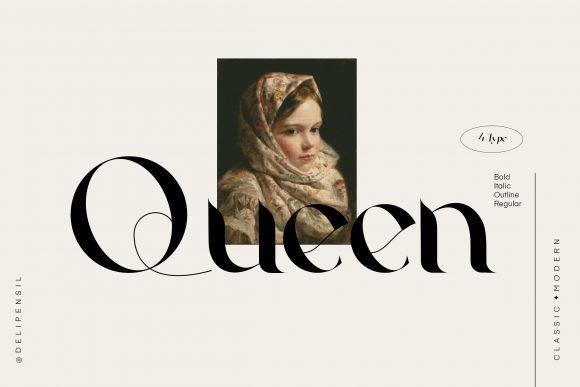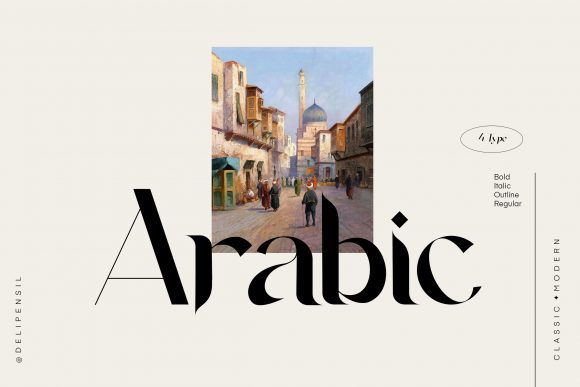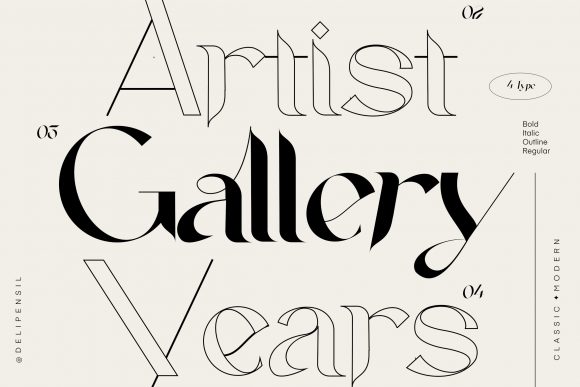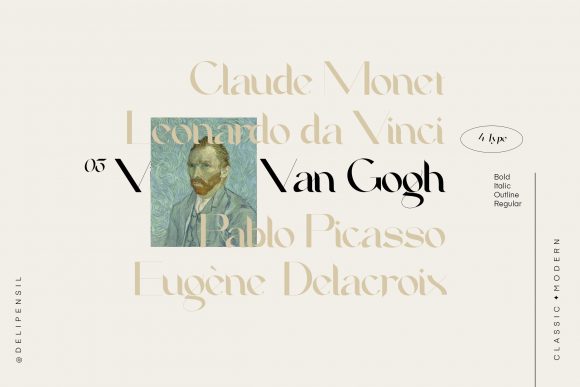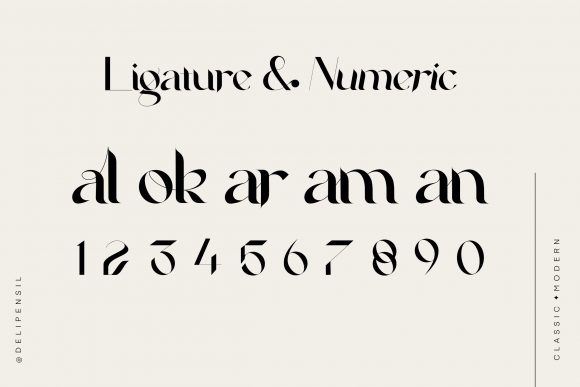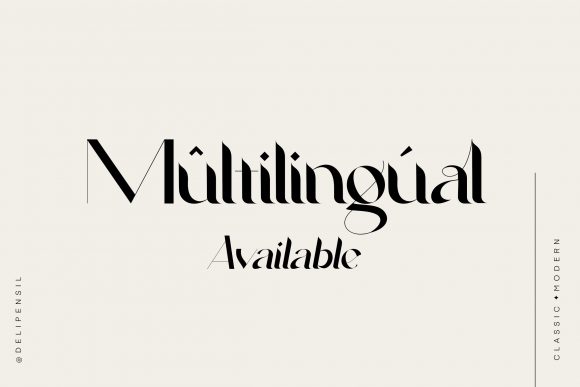
Discover the Elegance of Agoka Font: Elevate Your Designs with a Distinct Serif Style
In the realm of typography, a font can make or break the visual appeal of a design. For crafters, designers, and anyone looking to add a touch of sophistication to their creations, the Agoka Font stands out as a remarkable choice. This elegant and distinct serif font is not just a typeface; it’s a design asset that can transform any project into a masterpiece. In this article, we’ll delve into the world of Agoka Font, exploring its features, benefits, and how it can elevate your design game.
What is Agoka Font?
Agoka is a cool, elegant, and distinct serif font that has captured the attention of designers and crafters alike. Its unique design elements set it apart from more traditional serif fonts, offering a fresh yet classic look that can be applied across various design projects. Whether you’re working on a branding project, a website design, or crafting beautiful print materials, Agoka Font promises to add a layer of sophistication and elegance.
Key Features of Agoka Font
- Elegant Design: Agoka’s design is characterized by its elegant lines and classic serif elements. It exudes a sense of luxury and professionalism, making it perfect for high-end projects.
- Distinctive: What sets Agoka apart is its distinctiveness. In a sea of similar fonts, Agoka offers a unique look that can help your designs stand out.
- Versatile: Agoka Font is incredibly versatile. It can be used for a wide range of projects, from digital platforms like websites and social media graphics to print materials such as brochures, posters, and business cards.
- User-Friendly: Despite its elegant and distinct features, Agoka Font is remarkably user-friendly. It comes in various weights, making it suitable for different design needs, from headings to body text.
Benefits of Using Agoka Font
Choosing Agoka Font for your projects comes with numerous benefits. Here are a few:
- Enhances Readability: The well-crafted serif design of Agoka improves readability, making it an excellent choice for both digital and print media.
- Boosts Aesthetic Appeal: Agoka’s elegant design can significantly enhance the aesthetic appeal of your projects, making them more engaging and attractive to your audience.
- Saves Time: With Agoka, you don’t have to spend hours designing a custom font. This ready-to-use font saves you time without compromising on quality or uniqueness.
- Supports Creative Freedom: Agoka’s versatility and distinctiveness give you the creative freedom to experiment with different designs and styles, pushing the boundaries of your creativity.
How to Use Agoka Font Effectively
To make the most out of Agoka Font, consider the following tips:
- Pair it Wisely: When pairing Agoka with other fonts, ensure there’s a good contrast. Agoka works well with sans-serif fonts for a modern look or with script fonts for a more elegant feel.
- Experiment with Weights: Agoka comes in various weights. Experiment with them to find the perfect balance for your design, using bolder weights for headings and lighter weights for body text.
- Consider the Context: Think about where your design will be displayed. For digital platforms, consider using Agoka in larger sizes for headings to capture attention. For print materials, Agoka’s elegance shines through in any size.
Agoka Font is more than just a typeface; it’s a design companion that can elevate your creations to new heights. Its elegant and distinct serif design makes it a versatile asset for any designer or crafter looking to add a touch of sophistication to their projects. With its readability, aesthetic appeal, and user-friendly features, Agoka Font is poised to become a favorite in your font library. So, why wait? Explore the possibilities of Agoka Font today and discover how it can transform your designs into stunning visual experiences.